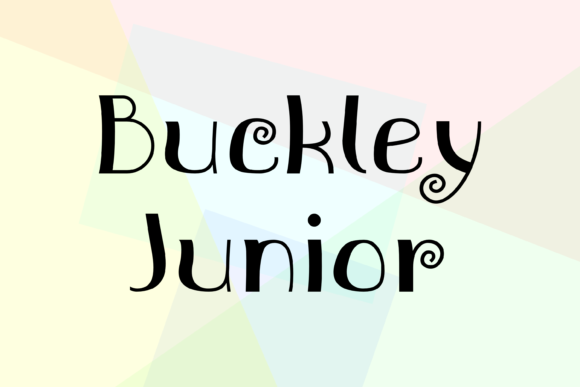
Unlock the Power of Creativity with Buckley Junior Font
Imagine you’re working on a design project and you’ve finally found the perfect image, color palette, and layout. But something is missing – a font that truly elevates your creation and leaves a lasting impression. This is where the Buckley Junior Font comes in – a cool and distinct display font that adds a touch of sophistication and flair to any project.
As a valuable addition to your font library, the Buckley Junior Font is designed to enhance your creative vision and take your designs to the next level. Whether you’re working on a poster, logo, or social media graphics, this font has the potential to make your work stand out from the crowd and capture the attention of your audience.
Buckley Junior Font Key Features
- Size: 5 styles: Regular, Italic, Bold, Bold Italic, Condensed
- Unique Characteristics: Designed specifically for children’s educational materials, features a playful and approachable design
- Character Set: Supports a wide range of languages, including Latin, Cyrillic, and Greek alphabets
- Font Metrics: OpenType features, including ligatures, swashes, and stylistic sets
Buckley Junior Font Review
I’ve had the chance to work with Buckley Junior Font, and I must say it’s an interesting font. Let’s dive into what I like and dislike.
- Friendly and approachable feel: Buckley Junior Font has a soft, gentle appearance that’s perfect for children’s books, educational materials, or any content that requires a non-threatening tone.
- Clear readability: The font’s design ensures that text remains easily readable even at smaller font sizes.
- Versatility: It works well for both digital and print materials, making it a great choice for multi-channel designs.
- Limited range of weights: The font only comes in a few weights, which might limit its use in more complex designs that require multiple font weights.
- Not ideal for bold or dramatic content: Buckley Junior Font’s friendly feel might not be the best choice for content that requires a bolder or more dramatic tone.
Overall, Buckley Junior Font is a solid choice for designs that require a friendly and approachable tone. While it has some limitations, its clear readability and versatility make it a great addition to any designer’s toolkit.
The Buckley Junior Font is ideal for creating playful and whimsical designs, such as children’s book illustrations, party invitations, and educational materials. To get the most out of this font, use it in conjunction with bold colors and playful graphics. Experiment with different font sizes and styles to create visual interest and hierarchy in your design.